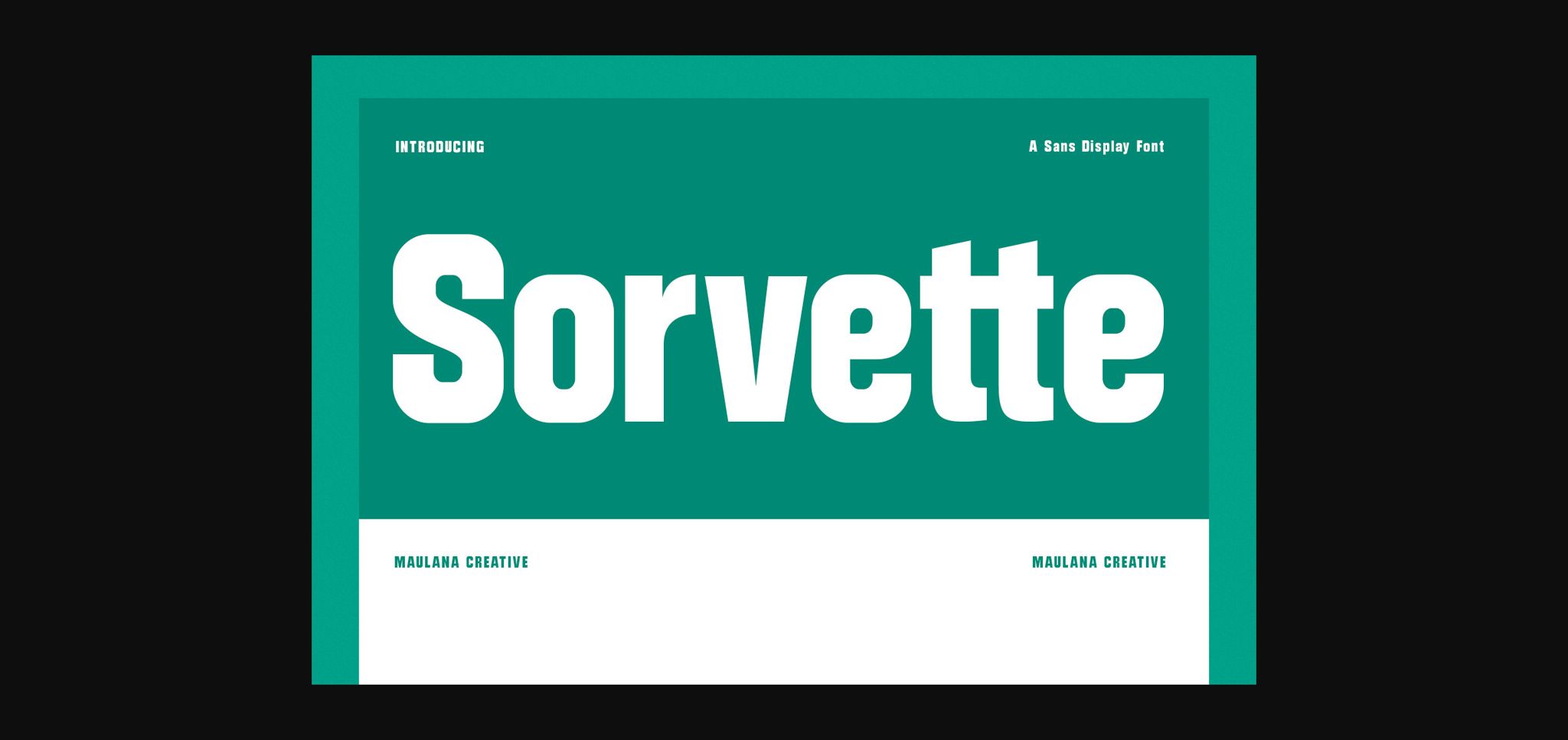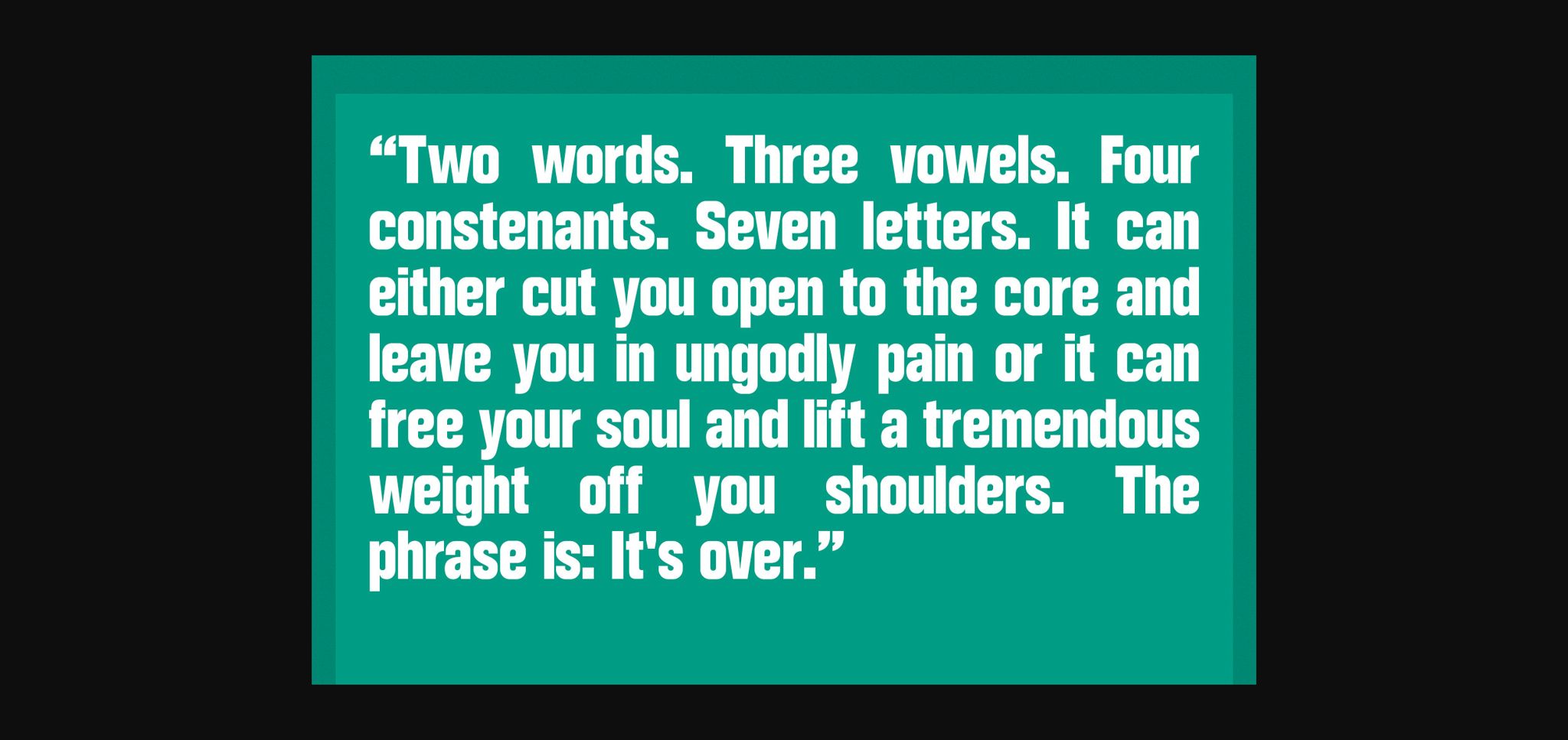
About Sorvette Font
Sorvette is a condensed, strong sans serif font. Contemporary and fresh, it is perfect for any design you wish to create. Add it to your creative projects and make them outstanding!